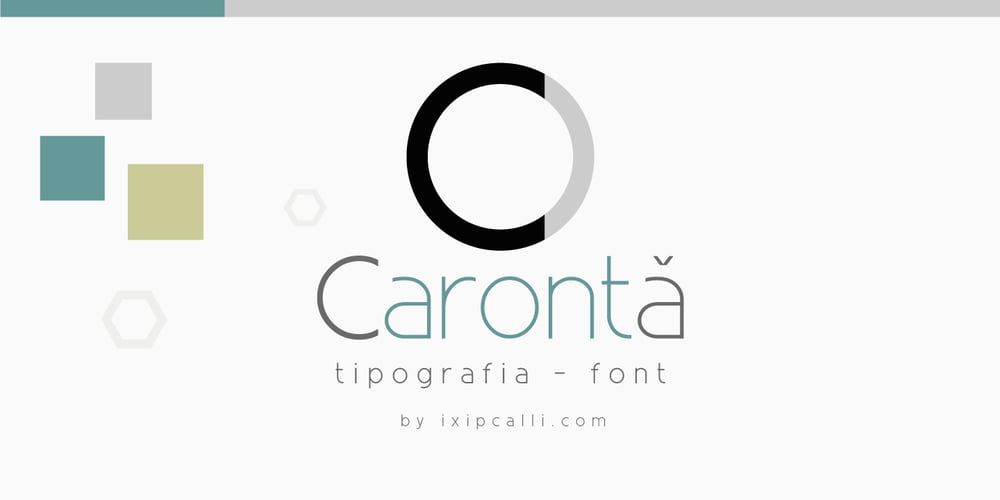
Caronta Font Family was designed by Francisco Arellano and published by Ixipcalli. Caronta contains 10 styles and family package options. The Caronta typeface is a modern, clean and easy-to-read sans serif typeface. It has been used for texts and documents where you want to show a minimalist appearance. The contrast between the light and bold fonts makes for a visual game that is pleasing to the eye. It has ten styles, and five weights.